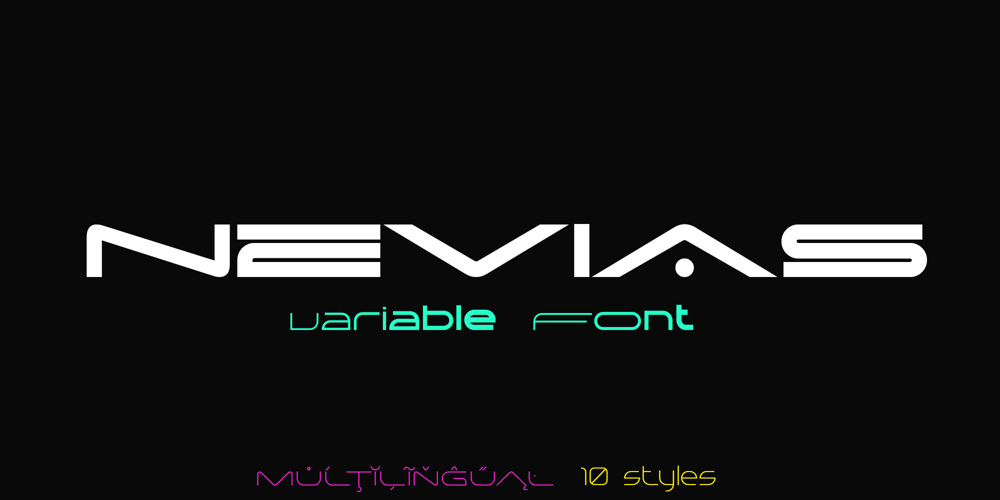
Nevias
Nevias font
Nevias Font Family was designed by Dmytro Poliakh and published by Sentavio. Nevias contains 11 styles and family package options. Nevias Font creates modern futuristic hi-tech atmosphere and style.Variable Controls are: Weight and Width.It is created basing on Font Family of 10 styles (Light, Bold, Condensed, Expanded etc.) which allows Nevias looks good as Headliner and as Text both.